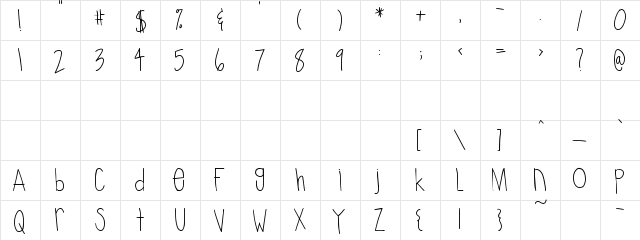
2peas vintage Regular
| Foundry | Two Peas in a Bucket |
| Designer | Amy Grendell |
Design Context for 2peas vintage Typeface
2peas vintage wears its vintage influences proudly, with letterforms that recall mid-century signage, classic packaging, and nostalgia-driven design.
Ideal for diner signage, record shop branding, 70s/80s-themed projects, and heritage product labels.
Font Pairing: Combine 2peas vintage with a simple slab or neutral sans — period-accurate companions reinforce the vintage feel without competing for attention.
Pro Tip: Lean into 2peas vintage's period character by pairing it with aged paper textures, muted colour palettes, and vintage illustration styles.